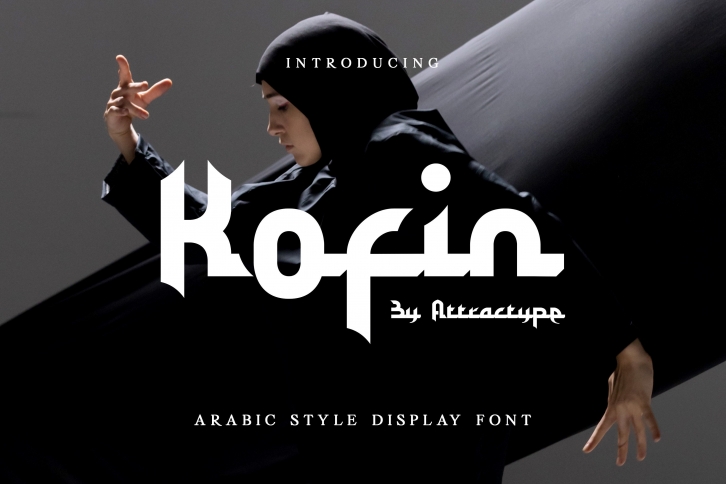
Kofin is an Arabic-style display font that looks stylish, elegant, and modern. Contemporary and fresh, it is perfect for any design you wish to create. Add it to your creative projects and make them outstanding!